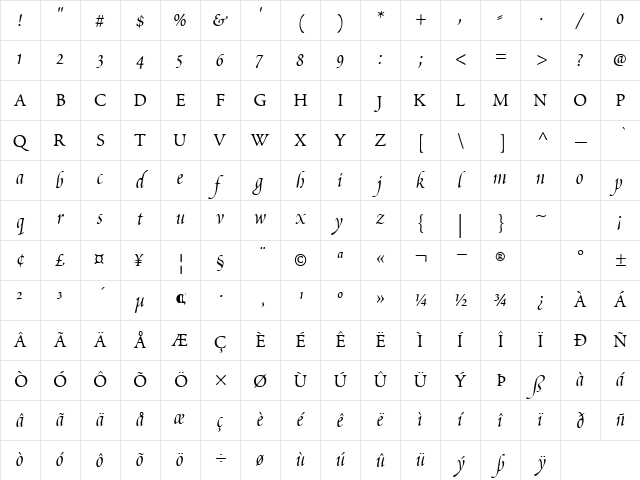
ScriptoriaSSK Bold
Design Context for ScriptoriaSSK
ScriptoriaSSK flows with the natural rhythm of handwritten lettering, making it ideal for designs that call for warmth and personal expression. Its bold stroke weight gives it real presence on the page.
Font Pairing: Combine ScriptoriaSSK with a simple geometric sans for maximum contrast - the tension between flowing curves and clean structure is a classic typographic pairing.
Pro Tip: Use ScriptoriaSSK for short runs of text - names, titles, or taglines. Extended body copy in script faces tires the eye quickly.